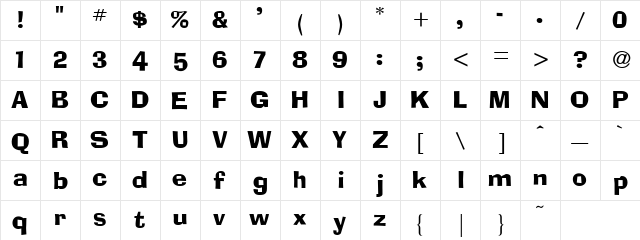
Anwik Regular
Design Context for Anwik Typeface
Anwik takes a measured approach to typography — its balanced proportions and neutral character make it a reliable workhorse for both digital and print work.